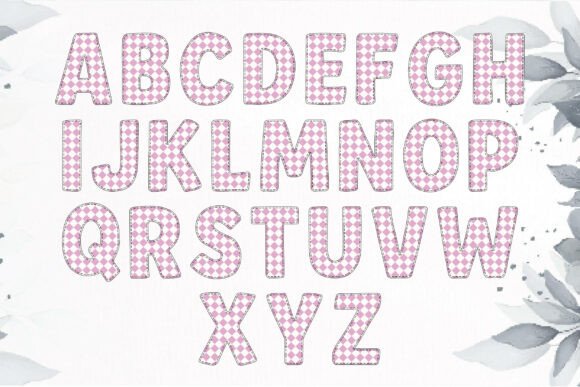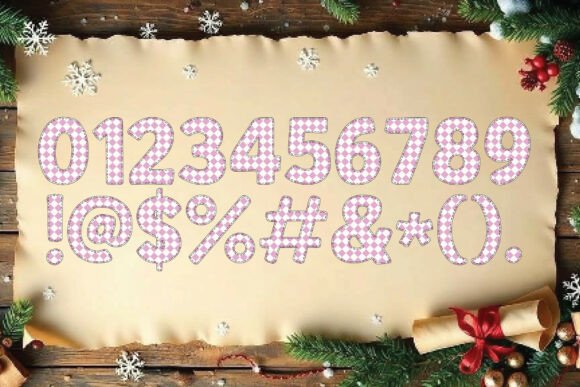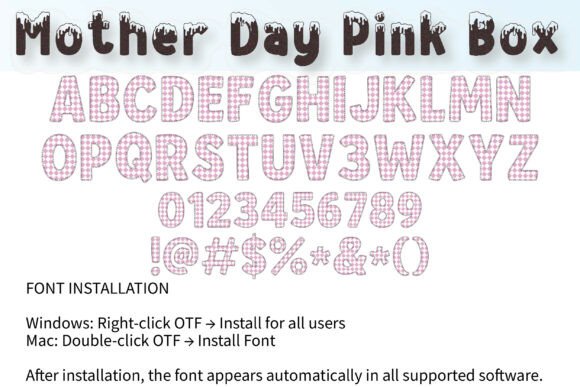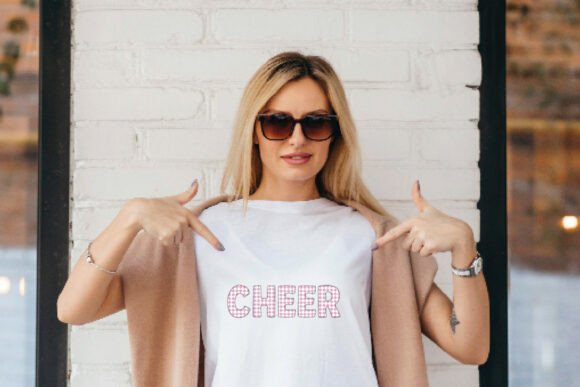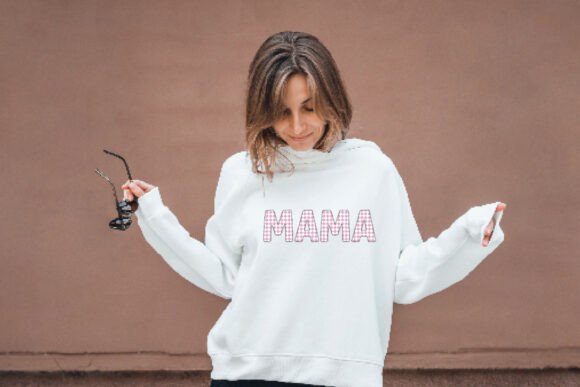
Introduction to Mother Day Pink Box Font
Mother Day Pink Box Cute Mom Alphabets Design sweet and stylish creations with this adorable Mother Day Pink Box Font.
Featuring charming boxed letter details and a soft feminine pink theme, this alphabet is perfect for creating eye-catching Motherโs Day and family celebration designs Great for t-shirts, mugs, stickers, planners, scrapbooking, sublimation projects, greeting cards, and social media graphics.
Key Features of Mother Day Pink Box Font